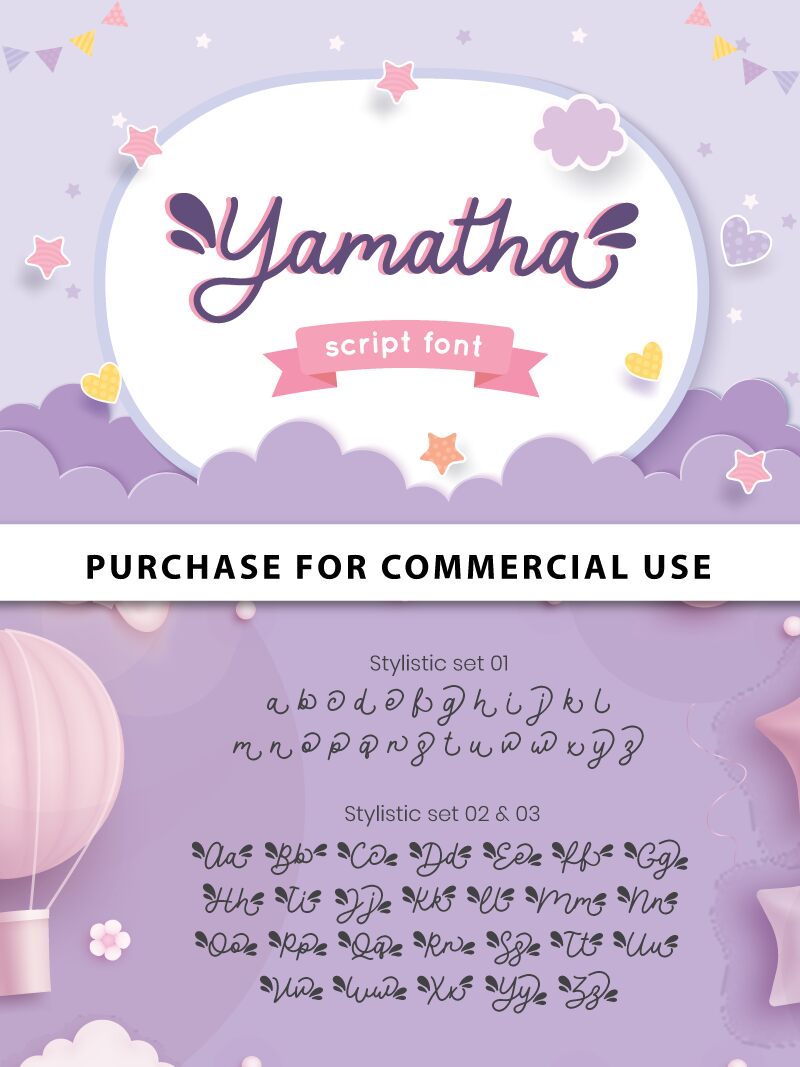
Yamatha Regular
Yamatha is a whimsical and adorable semi-light font designed by Attype Studio. This cute handwritten typeface is perfect for creating playful designs, such as children's book covers, greeting cards, and invitations. Its unique letterforms and charming style will add a touch of personality to any project. Use Yamatha for crafting logos or branding materials for businesses that want to convey a playful or friendly vibe. Whether it's on websites, social media posts, or packaging designs, Yamatha is versatile enough to capture attention and evoke positive emotions. Try it out for yourself and see how this delightful font can enhance your creative projects!